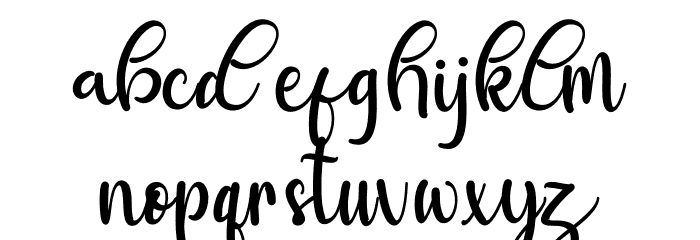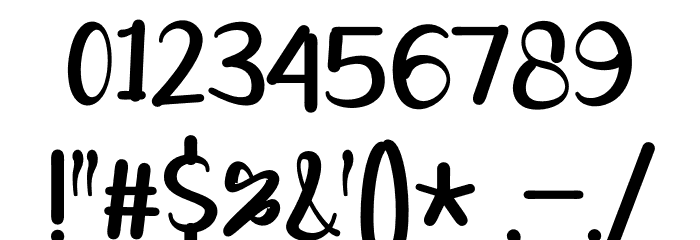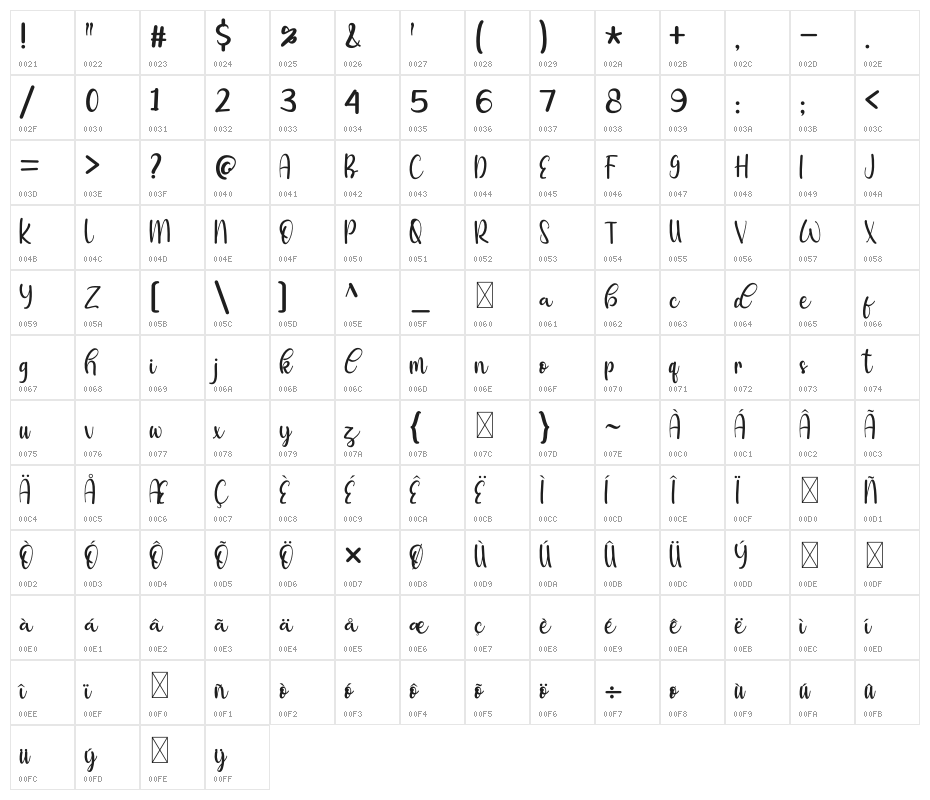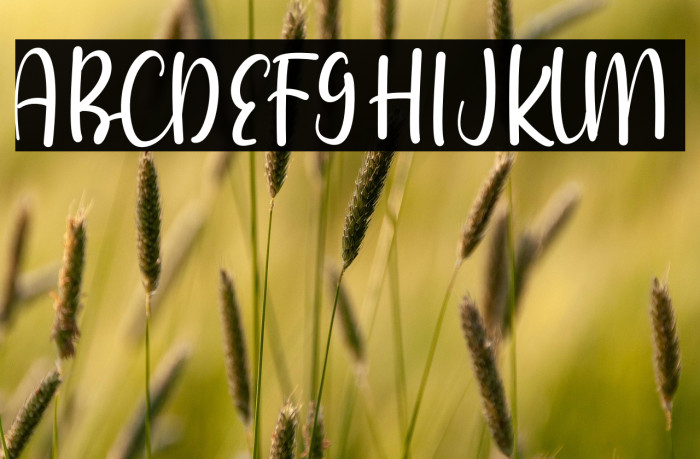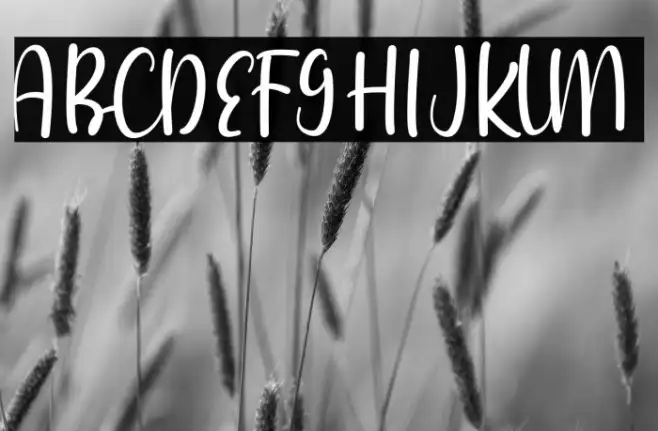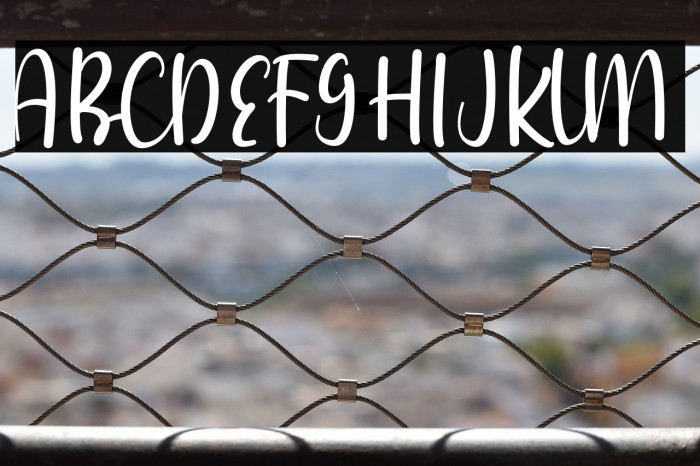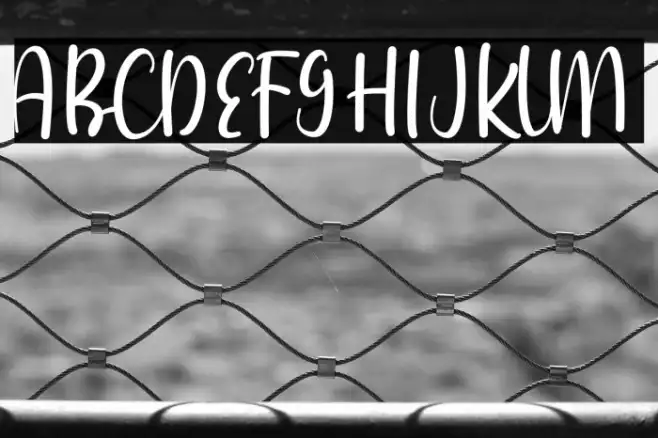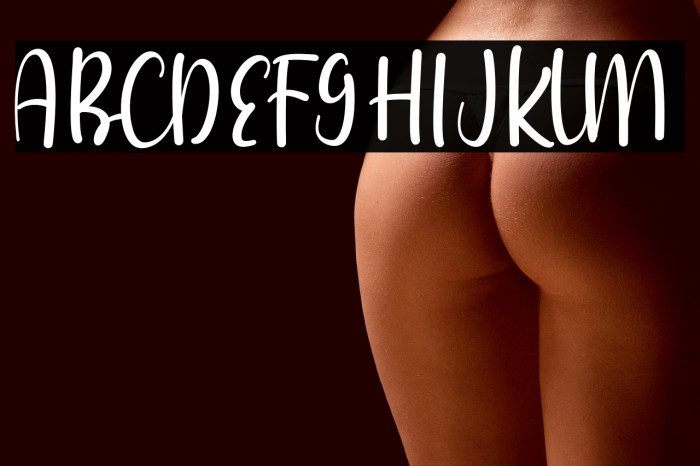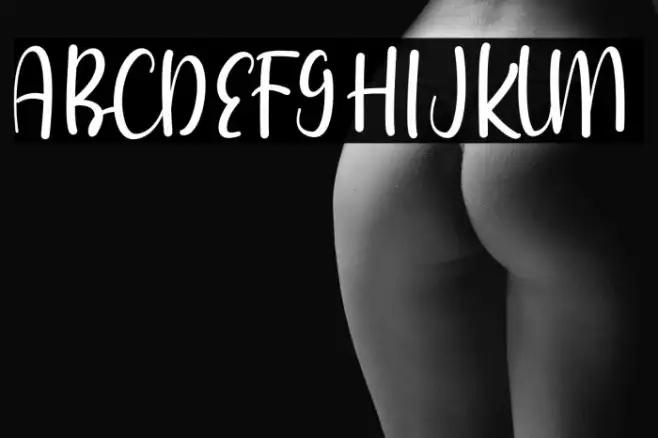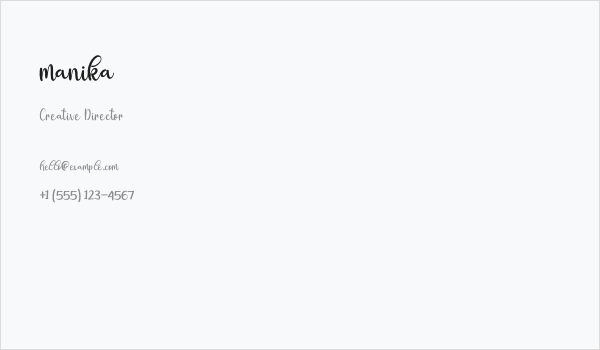
manika Font
This font exhibits a playful and energetic script style with a handwritten appearance. The uppercase letters are bold and slightly condensed, featuring smooth curves and a consistent stroke width that gives a lively yet balanced look. The lowercase letters maintain a similar style, with some characters having unique flourishes that add to the font's charm. The numerals are clear and legible, matching the overall aesthetic. Special characters are creatively designed, maintaining the font's whimsical nature. This font is versatile, suitable for projects that require a personal touch or a casual, friendly vibe.
A playful, handwritten script font with bold, smooth curves and unique flourishes.
- Font: manika
- Proposed Projects: Ideal for greeting cards, invitations, personal branding, and creative projects that require a friendly and approachable style.
- Category: Handwritten
- Use Case: Logos, Headlines, Invitations